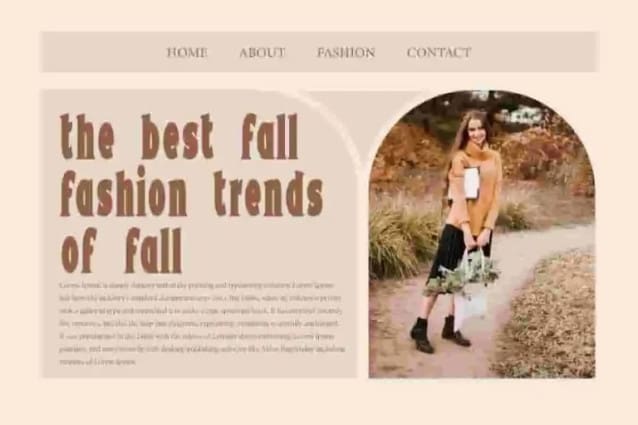
Aurelia Forest Font
Aurelia Forest Font is a fun Sherriff era inspired serif display font by NoahType. This font has a thick and sleek appearance so it can make your design look proportional. It will be good for any designs, such as poster, website, stationery, brand image, invitation, custom design, label, marketing material, menu, product packaging, quotes, signage, and many more!
Aurelia Forest Font includes a complete set of Uppercase and Lowercase Basic Characters, Numerals, Punctuation and Symbol. This font will give authentic look and also a perfect choice for many industries, such as fashion, beauty product, event or festival, accessories, advertising, movie, photography, printing, publishing, spa and salon, travel, etc.